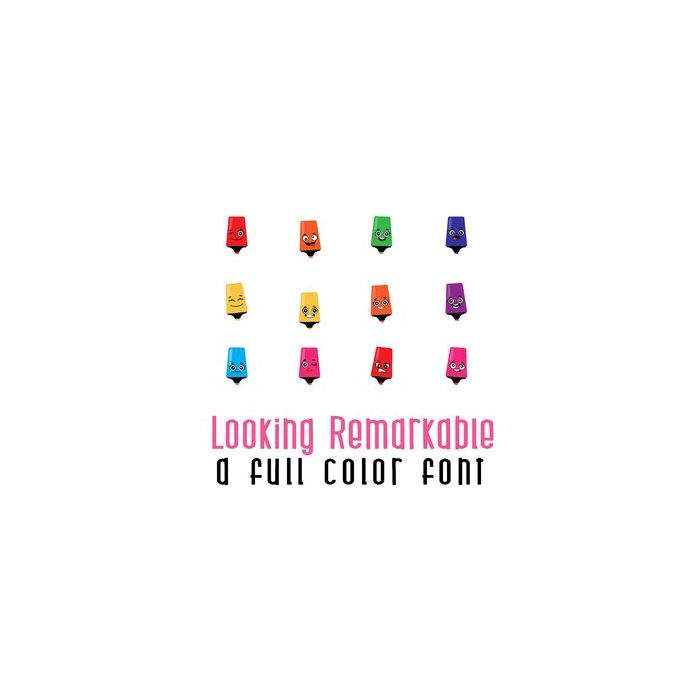
This adorable full-color doodlebat font features 26 marker emoticons. Perfect for classrooms, cards, crafts, gifts, decor, scrapbook pages, planner stickers, and more!